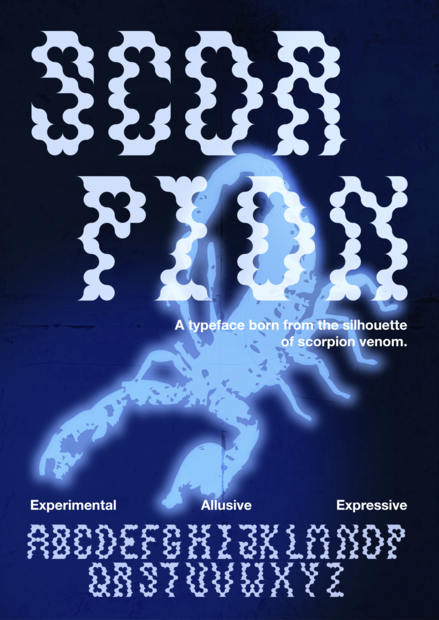
• A typeface born from the silhouette of scorpion venom.
Each letter carries the same edges dissolved by something corrosive. The bold gothic structure holds its ground, but the surface has already been compromised: bubbling, blistering, eaten away one scallop at a time.